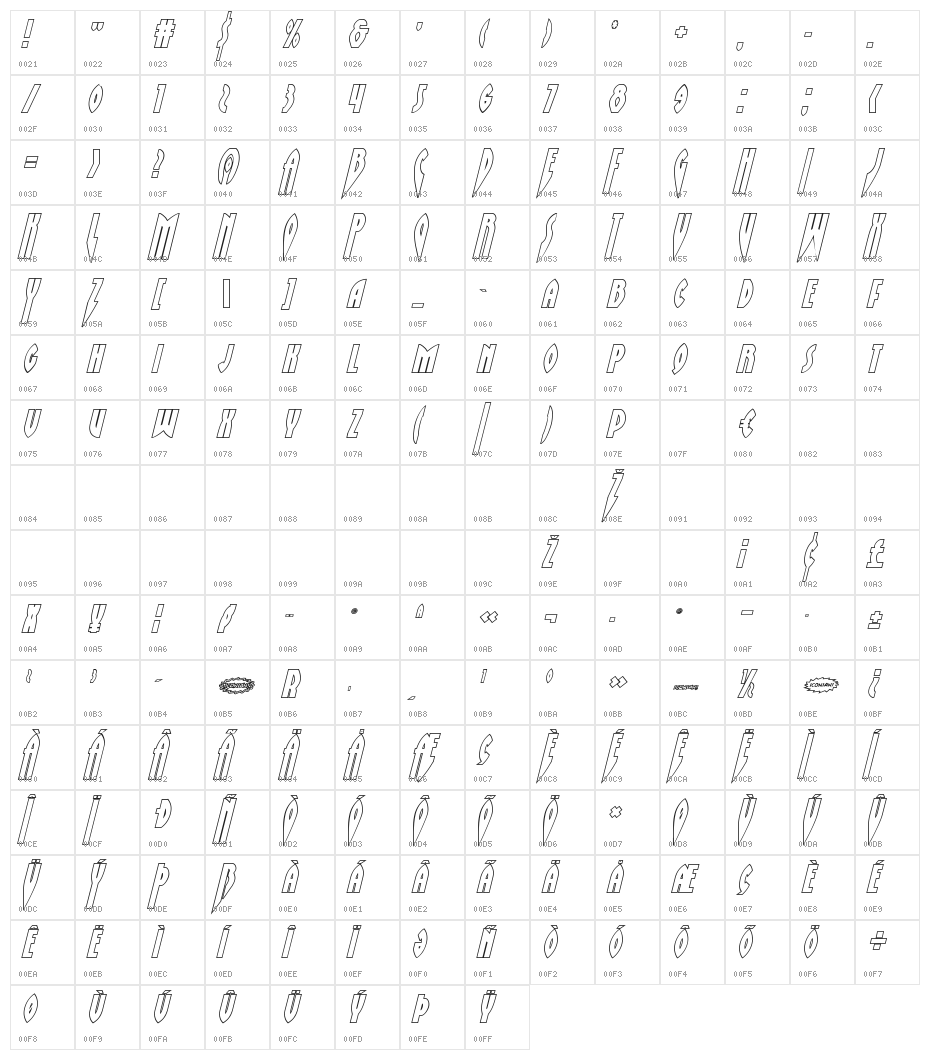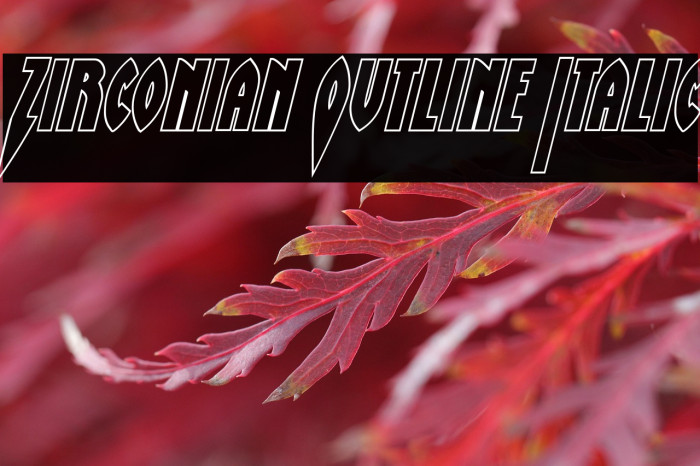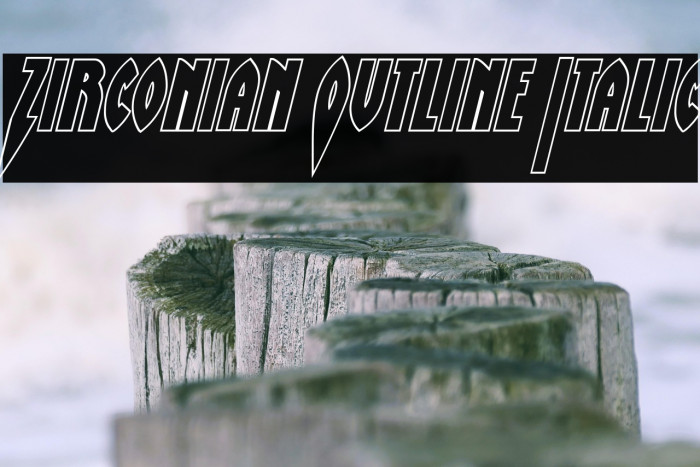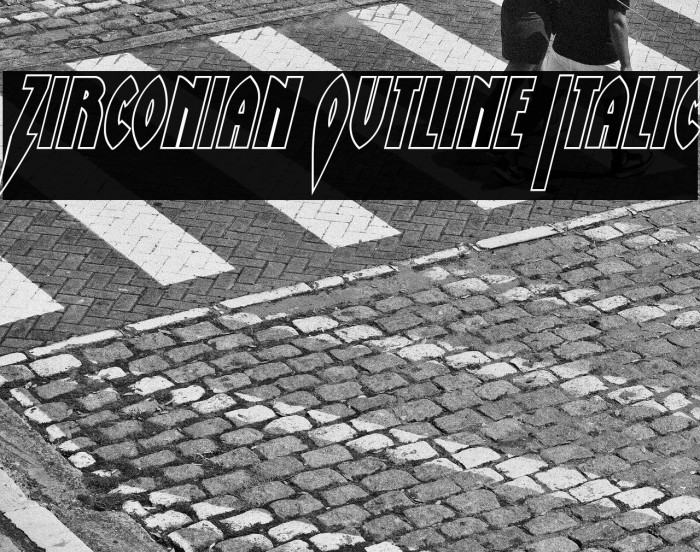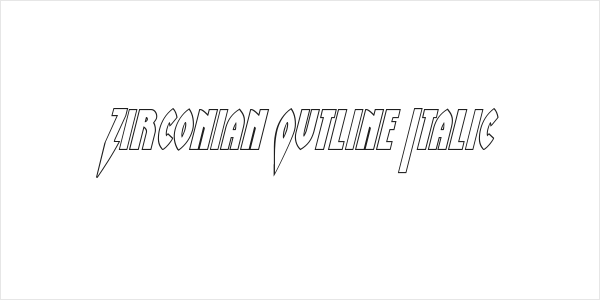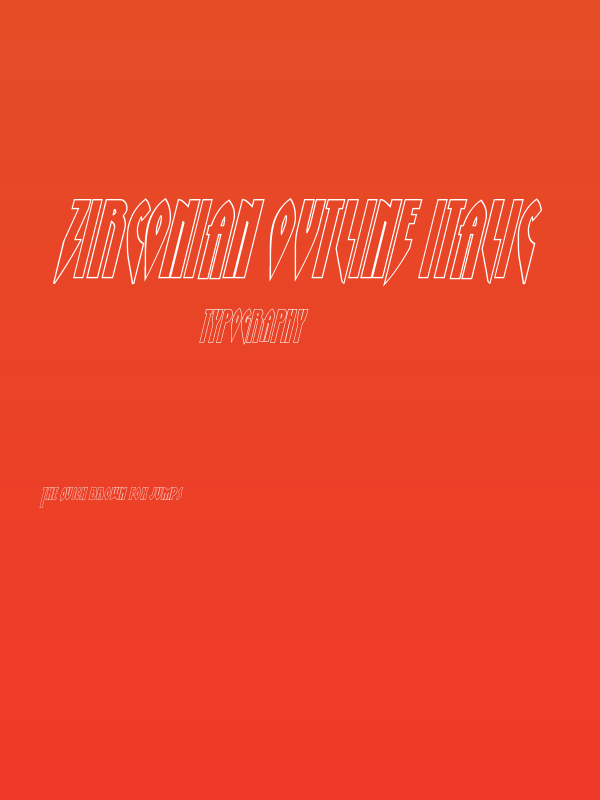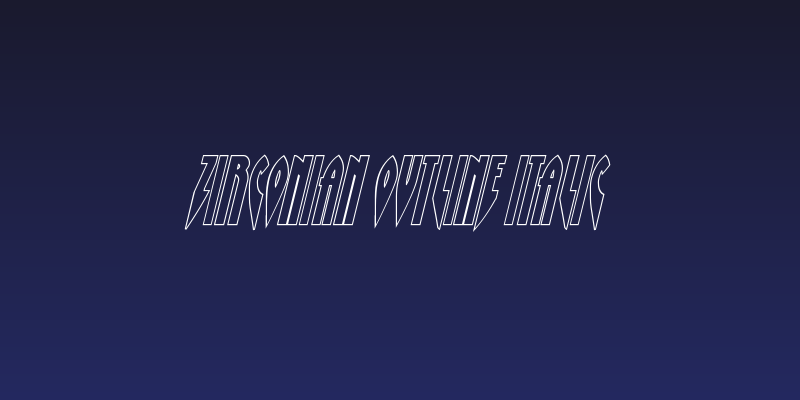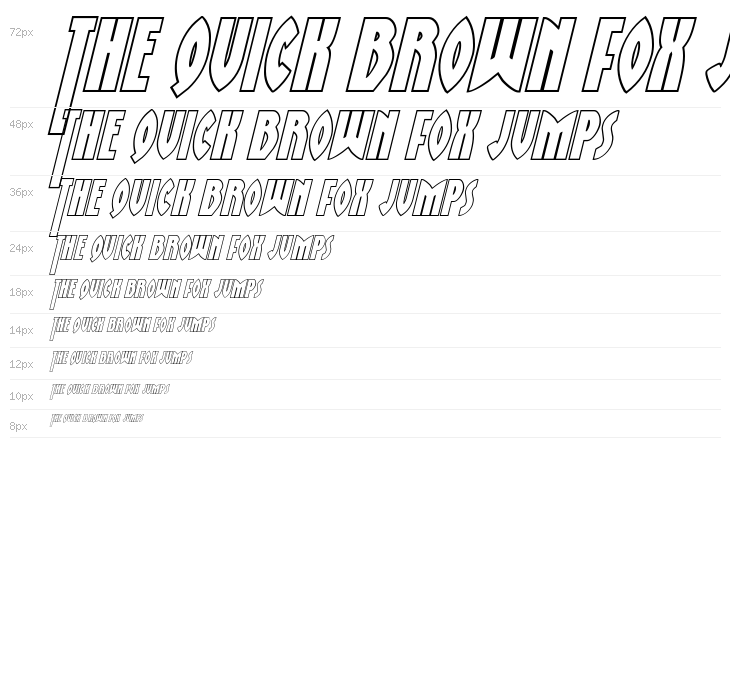
Zirconian Outline Italic Font
Zirconian Outline Italic Description
This font features a bold, dynamic outline style with a distinct italic slant, giving it a sense of movement and energy. The uppercase and lowercase letters are designed with sharp, angular edges, creating a futuristic and edgy appearance. The numbers and special characters maintain this aesthetic, ensuring consistency across all glyphs. The outline effect adds a layer of depth, making the characters stand out, while the italic angle enhances the sense of speed and modernity. This font is ideal for projects that require a strong visual impact and a contemporary feel.